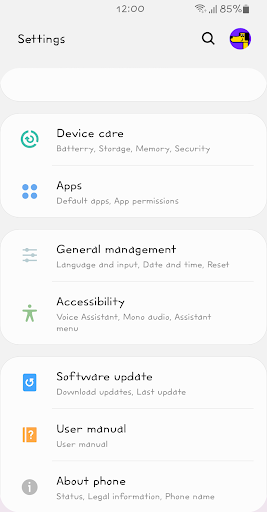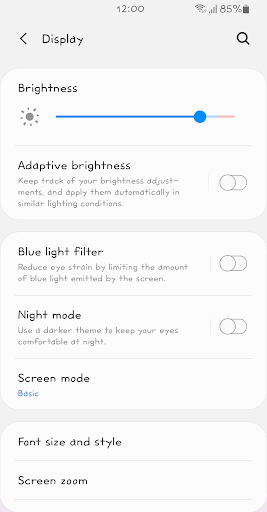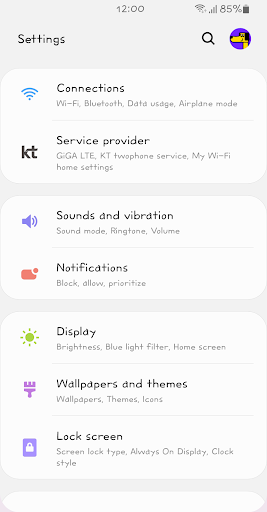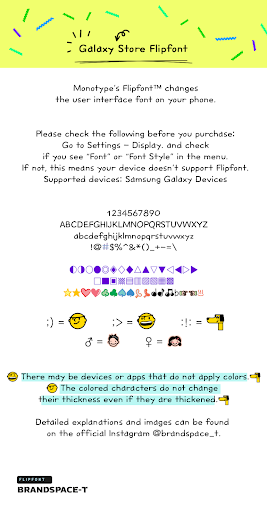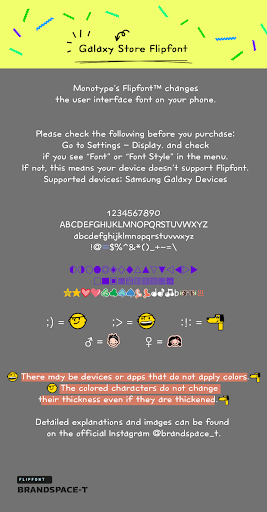
BSTFreely
This typeface is an unconstrained and unconstrained concept with free space. The characteristics of the small jaso and stroke are sensuous, centered on serifs, and considered legibility, "Soon, my brand, my brand." It's BSTFreely.